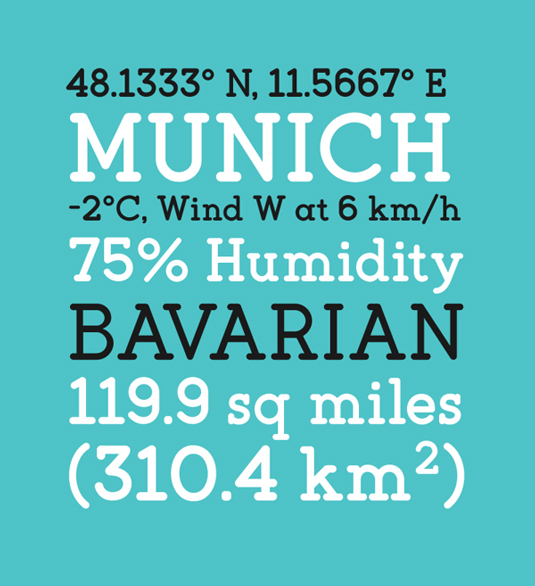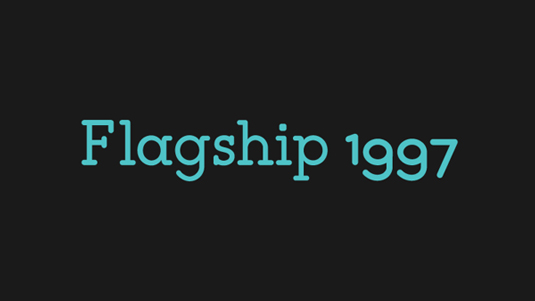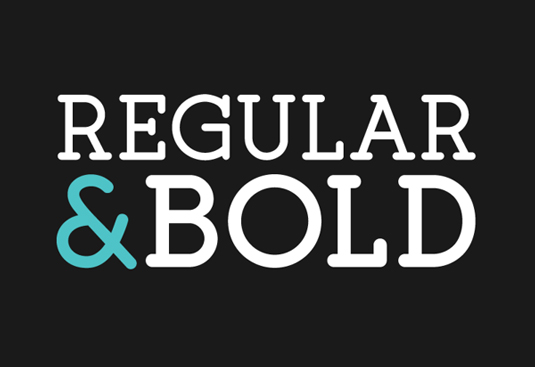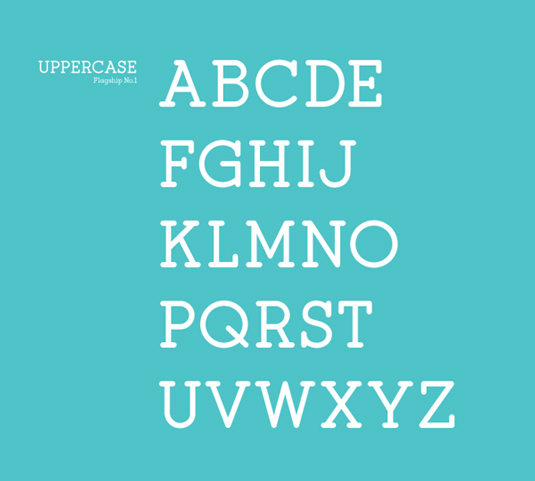
Font of the day: Flagship
Flagship by Gumpita Rahayu
Type designer Gumpita Rahayu has featured regularly in our font of the day posts, with designs such as Mohave and March catching our eye. His latest offering is Flagship.
"This font was adapted from the initial construction of slab serif font and transformed with rounded sides," he comments on Behance. "It is available in two styles, regular and bold, which work well for headlines, posters and any other designs you wish to create."